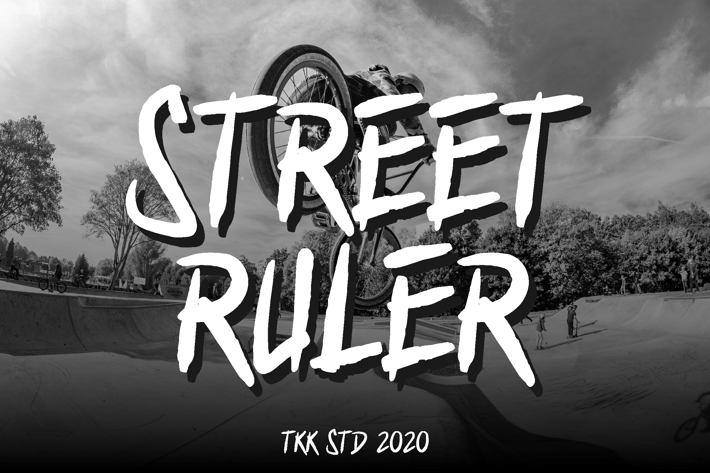
Street Ruler - Graffiti Font
Street Ruler - Urban Street Brush Font
Street Ruler is a graffiti-style handwriting font with raw brush strokes and a rebellious edge, perfect for injecting urban attitude into your design work. Its expressive marker-like forms and slightly distorted proportions give off a handcrafted authenticity that resonates deeply with youth culture, streetwear branding, and skatepark aesthetics. Featuring sharp terminals, irregular rhythm, and bold vertical flow, this font brings a sense of motion and individuality to every letter.
This font delivers a confident, bold, and unfiltered personality—ideal for projects needing street-smart charisma. Whether it's a skateboarding zine, music event flyer, or social media poster, Street Ruler stays loud, dynamic, and original.
Use Street Ruler when your project demands unapologetic street style, bold visual presence, and genuine youth appeal. It thrives in apparel design, music branding, poster graphics, and video thumbnails, especially those related to skateboarding, BMX, rap culture, or indie events. The font captures the raw energy of rebellion and identity, empowering creatives to speak directly to Gen Z and youth-centric audiences.
Key Features:
Urban Marker Style
- Hand-drawn look with rough brush contours
- Mimics real marker strokes for authentic graffiti energy
Built for Youthful Brands
- Stands out in skatewear, music posters, or YouTube titles
- Feels edgy, fast-paced, and culturally relevant
Emotionally Charged Typography
- Unbalanced rhythm creates movement and excitement
- Communicates loud messages with minimal effort
- Basic latin A-Z and a-z
- Numbers
- PUA Encoded Characters
Street Ruler is a graffiti-style handwriting font with raw brush strokes and a rebellious edge, perfect for injecting urban attitude into your design work. Its expressive marker-like forms and slightly distorted proportions give off a handcrafted authenticity that resonates deeply with youth culture, streetwear branding, and skatepark aesthetics. Featuring sharp terminals, irregular rhythm, and bold vertical flow, this font brings a sense of motion and individuality to every letter.
This font delivers a confident, bold, and unfiltered personality—ideal for projects needing street-smart charisma. Whether it's a skateboarding zine, music event flyer, or social media poster, Street Ruler stays loud, dynamic, and original.
Use Street Ruler when your project demands unapologetic street style, bold visual presence, and genuine youth appeal. It thrives in apparel design, music branding, poster graphics, and video thumbnails, especially those related to skateboarding, BMX, rap culture, or indie events. The font captures the raw energy of rebellion and identity, empowering creatives to speak directly to Gen Z and youth-centric audiences.
Key Features:
Urban Marker Style
- Hand-drawn look with rough brush contours
- Mimics real marker strokes for authentic graffiti energy
Built for Youthful Brands
- Stands out in skatewear, music posters, or YouTube titles
- Feels edgy, fast-paced, and culturally relevant
Emotionally Charged Typography
- Unbalanced rhythm creates movement and excitement
- Communicates loud messages with minimal effort
- Basic latin A-Z and a-z
- Numbers
- PUA Encoded Characters